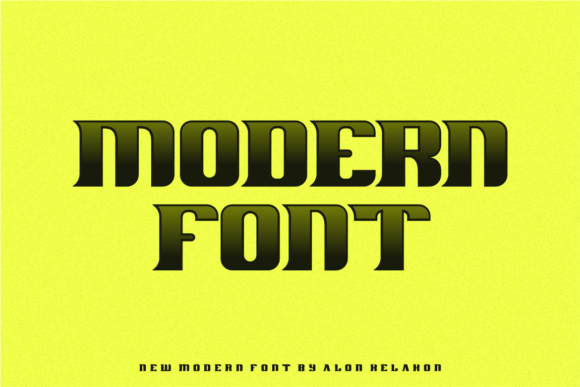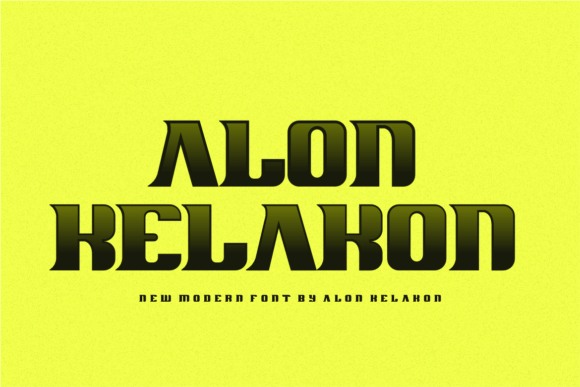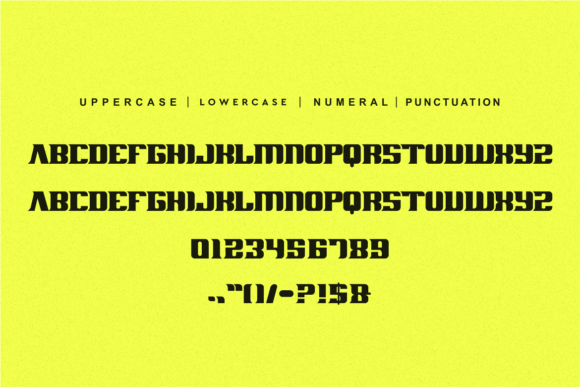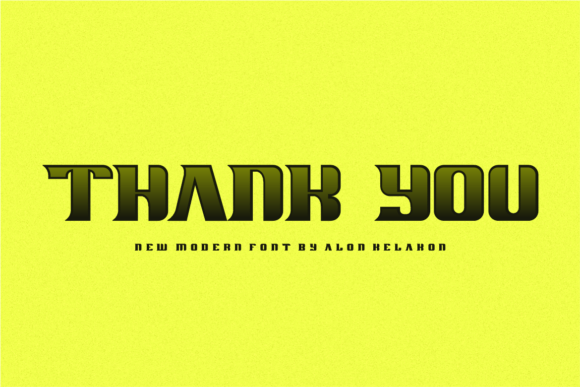
Unleash Your Creativity with Black Generic Font: The Ultimate Display Font
Are you tired of using the same old fonts for your creative projects? Look no further! Black Generic Font is here to revolutionize the way you approach typography. This cool and modern display font is designed to take your designs to the next level, making it a true favorite among designers and crafters alike.
The Story Behind Black Generic Font
Black Generic Font is more than just a font – it’s a design statement. Masterfully crafted to bring a touch of sophistication and elegance to your projects, this font is perfect for those who want to make a lasting impression. Whether you’re working on a branding project, a website, or a craft, Black Generic Font is the perfect choice.
What Makes Black Generic Font So Special?
- Unique and Modern Design: Black Generic Font boasts a sleek and contemporary design that’s sure to turn heads. Its clean lines and geometric shapes make it perfect for a wide range of applications.
- High Versatility: This font is incredibly versatile, making it suitable for use in various contexts, from headings and titles to logos and signage.
- Easy to Read: Despite its bold and modern design, Black Generic Font remains highly legible, ensuring that your message is conveyed clearly and effectively.
- Perfect for Creative Projects: Whether you’re a designer, crafter, or DIY enthusiast, Black Generic Font is the perfect choice for adding a touch of personality to your projects.
How to Use Black Generic Font in Your Designs
Why Designers and Crafters Love Black Generic Font
In conclusion, Black Generic Font is a game-changer for designers and crafters. Its unique and modern design, high versatility, and ease of use make it the perfect choice for a wide range of creative projects. Whether you’re looking to add a touch of sophistication to your designs or simply want to try something new, Black Generic Font is the ultimate display font.